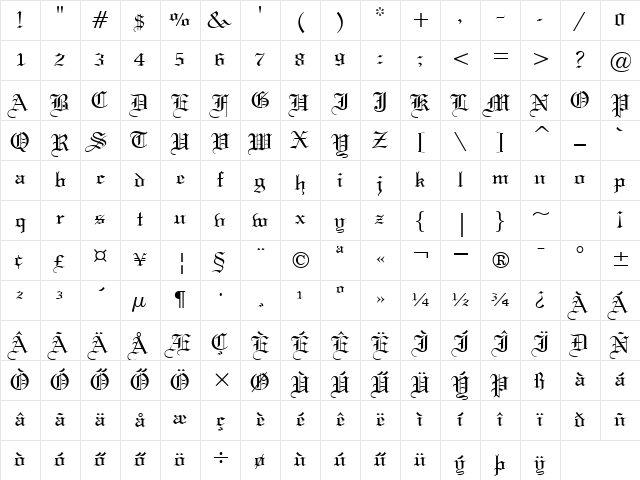
Huni_Weddq Regular
Design Context for Huni_Weddq
Huni_Weddq is a composed and adaptable typeface that performs quietly and consistently across a wide range of design contexts.